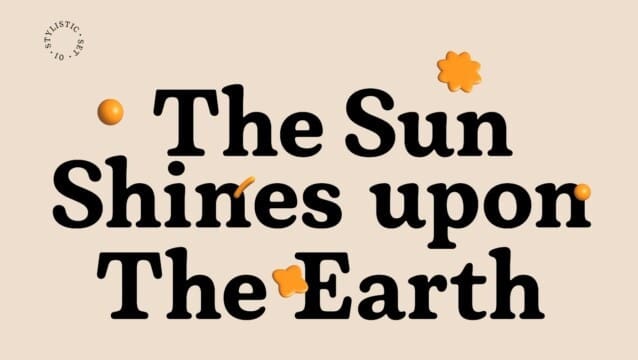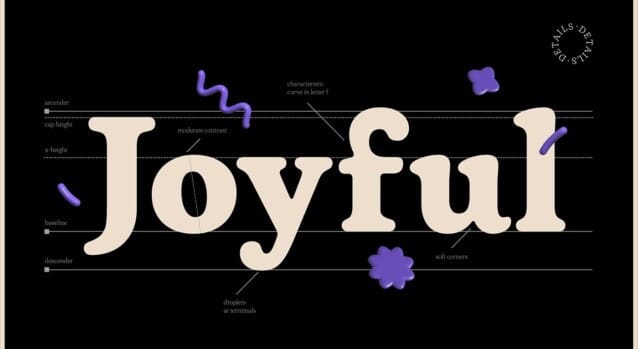
Plush Font
Plush Font is a typeface that captures the essence of soft serifs, blending the best of traditional and modern typography. Its design is inspired by the timeless elegance of fonts like Windsor and Cooper, yet it brings a fresh perspective that resonates with contemporary aesthetics. Plush Font is designed to be versatile, equally at home in high-end branding as well as more casual, everyday use. Its rounded serifs and soft curves give it a warm, approachable feel, while its robust structure ensures readability and functionality across various mediums.